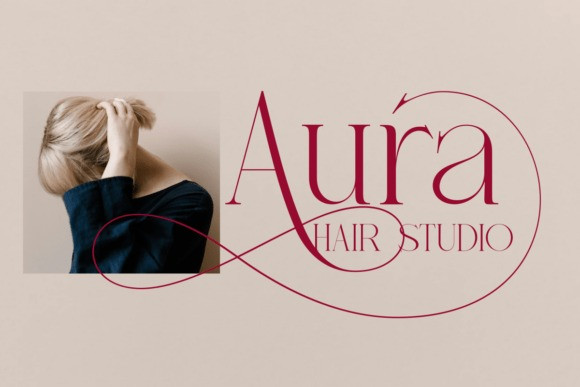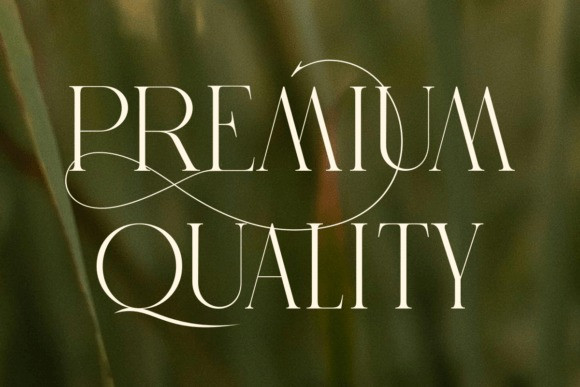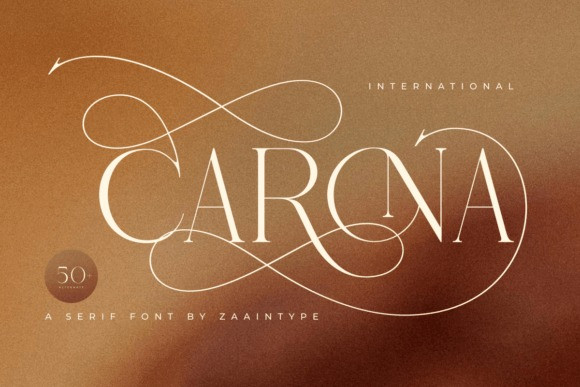
Carona Font
Carona Font is an elegant serif font that blends classic sophistication with a modern touch. Its letterforms feature a refined contrast between thick and thin strokes, bringing a sense of luxury while remaining highly legible. Perfect for editorials, branding, invitations, and packaging designs that demand a classy and distinguished look.